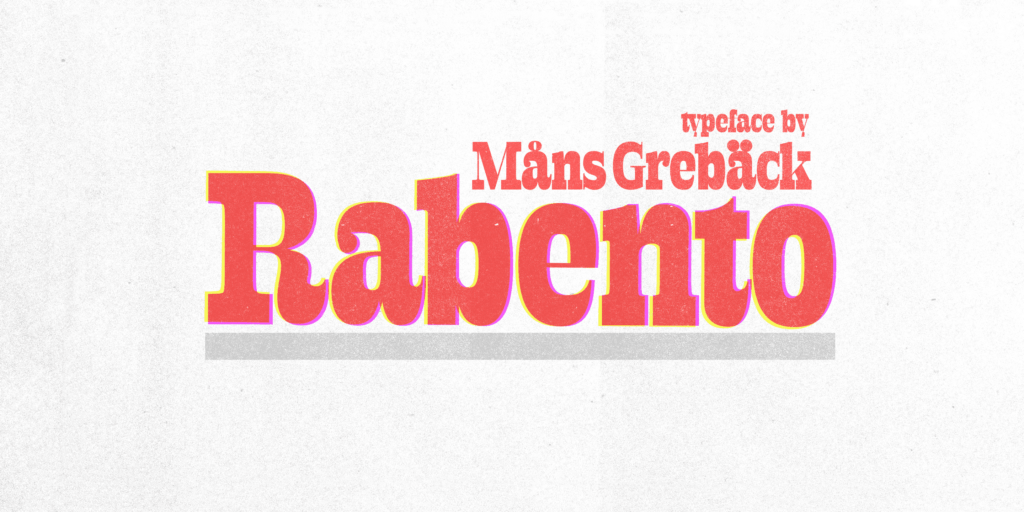
Rabento
Rabento is an original serif family, with articulate and big letterforms.
The typeface was drawn and created by Mans Greback between the years 2018-2021, and is designed to assure a unique and confident character to any headline, logotype or title.
A display typeface made for large text displays, it is still clear and legible.
With great contrast, this lettering has precise hairline thin horizontal parts, a bold and expressive outline and fat slab serifs. It has traditional traits, but a new and modern design, which together makes for an impactful and notable type setting.
Rabento is provided in six high-quality styles:
Regular, Italic, Bold, Bold Italic, Black & Black Italic.
The font is built with advanced OpenType functionality and has a guaranteed top-notch quality, containing stylistic and contextual alternates, ligatures and more features; all to give you full control and customizability.
It has extensive lingual support, covering all Latin-based languages, from North Europe to South Africa, from America to South-East Asia.
It contains all characters and symbols you’ll ever need, including all punctuation and numbers.